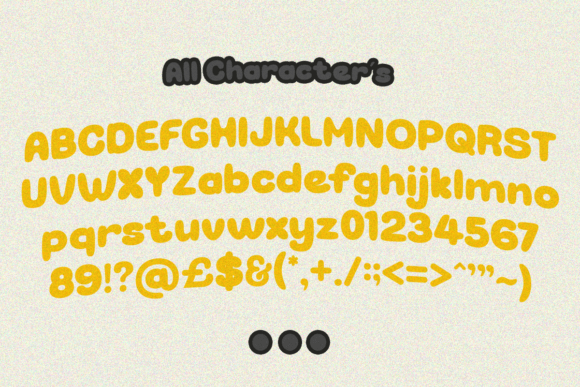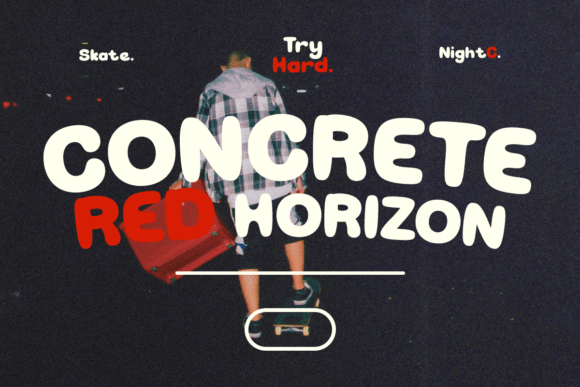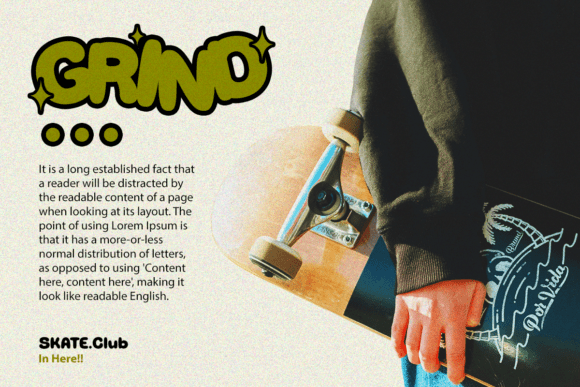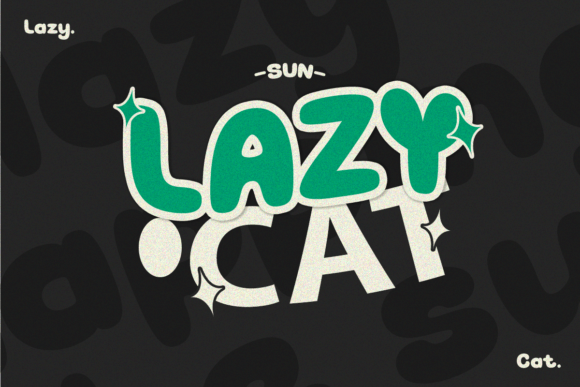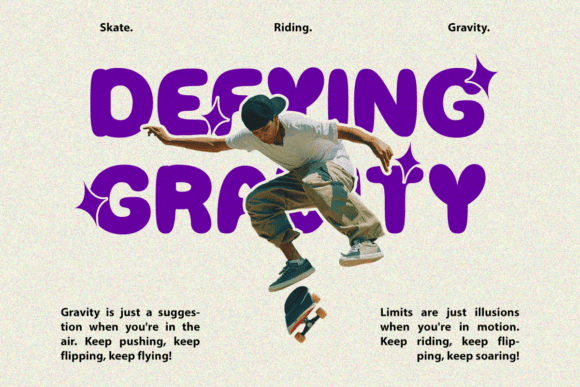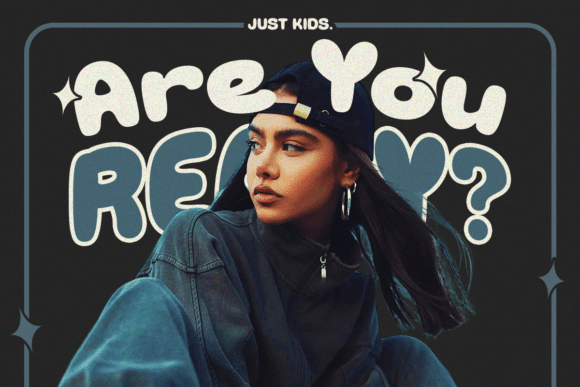
Meet Your New Best Friend: Bubbonic Font
Remember the excitement of finding that perfect font for your next design project? You know, the moment when everything falls into place and your ideas start to bubble up (pun intended). For many designers, that ‘aha’ moment is exactly what they’re looking for, and we’re here to introduce you to the star of the show: Bubbonic Font.
Bubbonic Font is a modern, playful bubble font designed to bring a burst of joy to any design. With its ultra-thick, rounded forms, it’s reminiscent of vinyl stickers and retro street art – guaranteed to make your text “pop” off the page. Whether you’re working on youth-oriented branding, sticker designs, gaming interfaces, or bold packaging, this typeface is a fantastic choice to elevate your designs and leave a lasting impression.
Bubbonic Font Key Features
- Font Family: Bubbonic Font is a sans-serif typeface designed to convey a fun and playful atmosphere.
- Unique Characteristics: Bubbonic Font features a unique blend of rounded edges and geometric shapes, creating a visually appealing and modern aesthetic.
Bubbonic Font Review
As a designer, I was excited to dive into Bubbonic Font and see what it had to offer. On the surface, it’s a fun and playful font that could add some personality to your designs. ✨ One thing that really stands out is the unique bubbly texture that gives the font a hand-drawn feel. It’s perfect for projects that need a touch of whimsy and charm.
Another advantage of Bubbonic Font is its versatility. ✨ It comes in a range of weights and styles, from light to bold, making it suitable for everything from headings to body text. The font also includes a variety of ornaments and decorations that can add an extra layer of visual interest to your designs.
- ⚠️ The font can be difficult to read at smaller sizes, which may limit its use in smaller text contexts.
- ⚠️ Some of the ornaments and decorations can feel a bit over-the-top, which may not be suitable for all design projects.
- ⚠️ The font’s unique texture can make it challenging to pair with other fonts, which may limit its use in multi-font designs.
Overall, Bubbonic Font is a fun and playful addition to any designer’s toolkit. While it may have some limitations, its unique texture and versatility make it a great choice for projects that need a touch of personality and charm.
The Bubbonic Font is ideal for creating playful and creative designs, such as:
- Party invitations
- Brand logos
- Graphic design projects